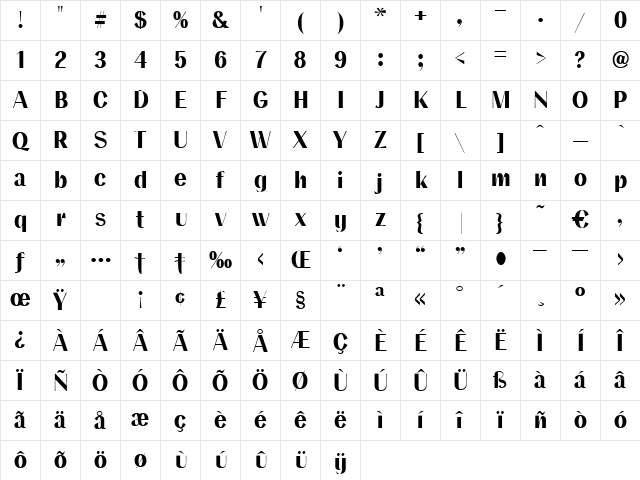
Complete Sachalin Regular glyph index. Displaying only characters natively supported by Sachalin Regular font.
Sachalin is a composed and adaptable typeface that performs quietly and consistently across a wide range of design contexts.